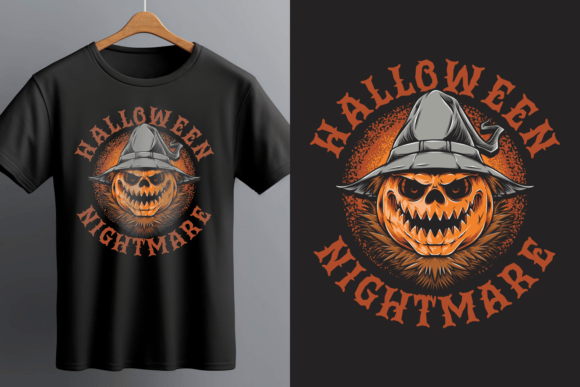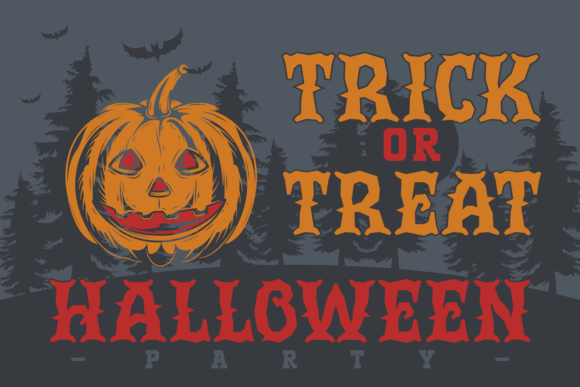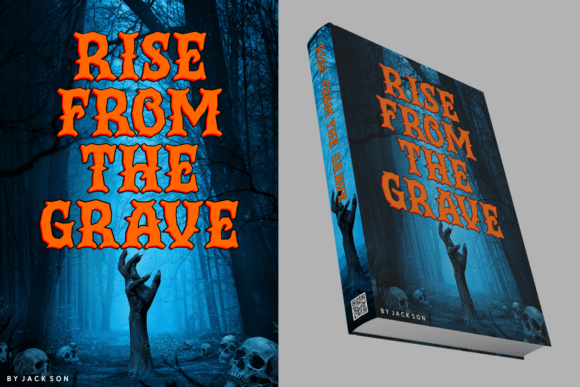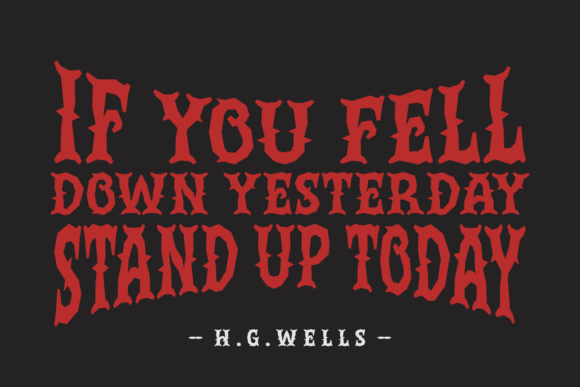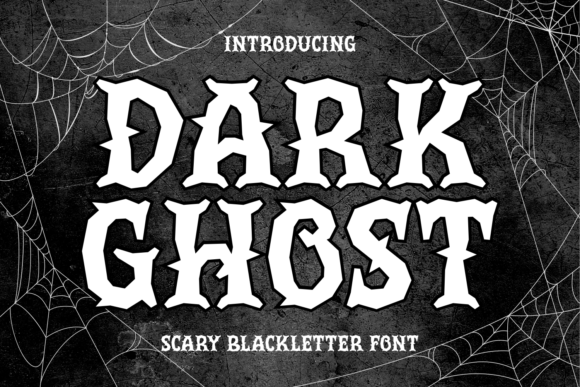
Unleash the Spook: Discover the Dark Ghost Font
As the witching hour approaches, designers and crafters are on the lookout for the perfect typography to add a spine-tingling touch to their Halloween-themed creations. Look no further than the Dark Ghost Font, a playful and spooky blackletter font that’s sure to cast a spell on your audience.
What is Dark Ghost Font?
Dark Ghost is a unique and eerie font that’s specifically designed to add a scary look to any creative idea. With its bold and mysterious appearance, this font is perfect for designing a wide range of Halloween-themed materials, from posters and invitations to banners, signage, and product packaging.
Key Features of Dark Ghost Font
- Playful and Spooky Design: Dark Ghost Font boasts a playful and spooky design that’s sure to capture the essence of Halloween.
- Blackletter Style: This font features a bold blackletter style that’s perfect for creating mysterious and eerie typography.
- Highly Versatile: Dark Ghost Font can be used for a wide range of design projects, from posters and invitations to banners, signage, and product packaging.
Uses of Dark Ghost Font
Dark Ghost Font is perfect for designers and crafters who want to add a spooky touch to their Halloween-themed creations. Here are some ideas for using this font:
- Halloween Posters: Create eye-catching posters that will grab the attention of your audience and leave a lasting impression.
- Invitations: Design spooky invitations that will set the tone for a howling good time.
- Banners: Create bold and mysterious banners that will add a touch of eeriness to any Halloween party or event.
- Signage: Use Dark Ghost Font to create eye-catching signage that will grab the attention of passersby.
- Product Packaging: Add a spooky touch to your product packaging with this eerie font.
Tips for Using Dark Ghost Font
Here are some tips for using Dark Ghost Font:
- Experiment with Different Sizes: Try using different font sizes to create a unique and eye-catching design.
- Combine with Other Fonts: Combine Dark Ghost Font with other fonts to create a bold and mysterious design.
- Use in Combination with Images: Use Dark Ghost Font in combination with images to create a spooky and eye-catching design.